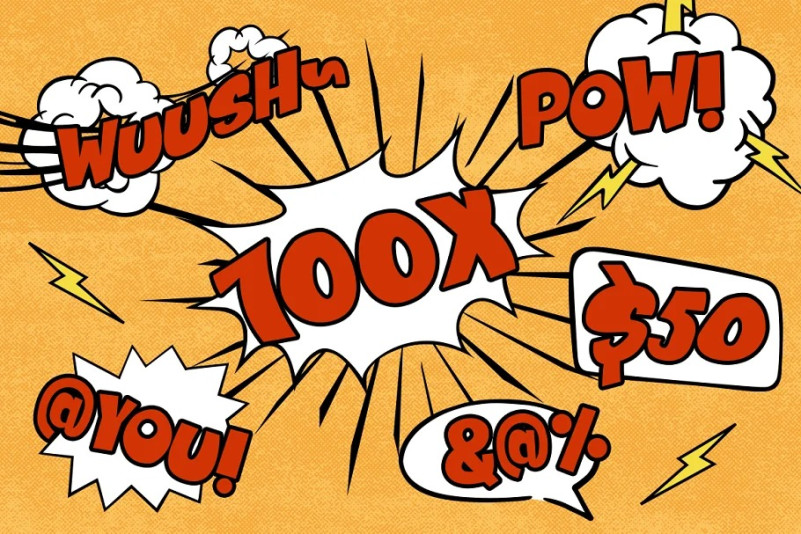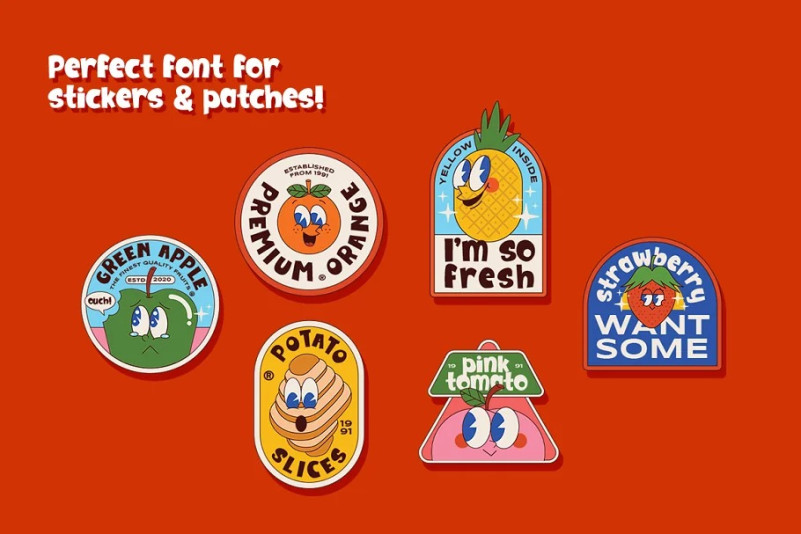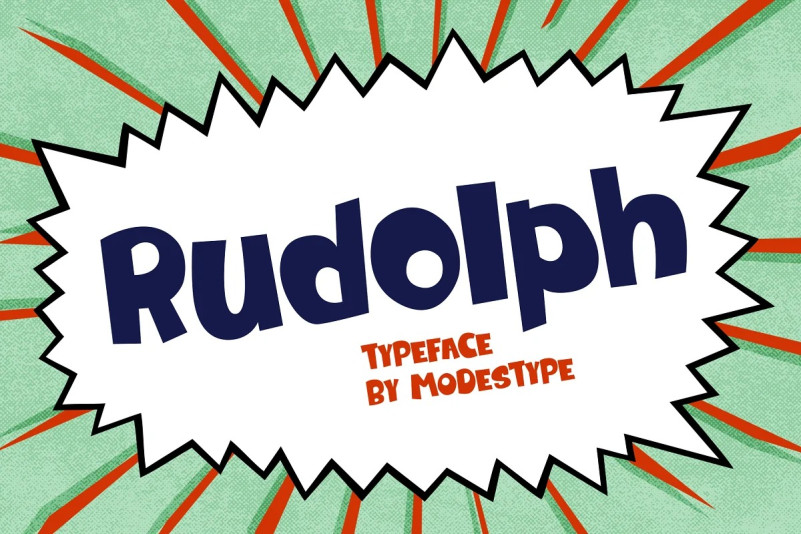
Rudolph Typeface
Rudolph Typeface – Fun Display Font. Font that pop in and bring a smile. Bold and funny shapes will make your word getting all the attention you need.
Suit perfectly for pop culture books market, online games, teens event poster, school supplies font, poster, movie title, youtube covers, youtube thumbnails, social media page covers and so on…